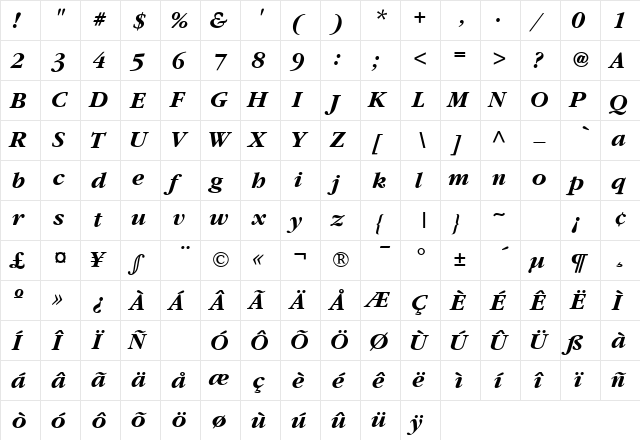
Garamond Semi Expanded SSi Bold Semi Expanded Italic Font Preview
Design Context for Garamond Semi Expanded SSi Typeface
Garamond Semi Expanded SSi takes a measured approach to typography — its balanced proportions and neutral character make it a reliable workhorse for both digital and print work. The slanted form adds forward momentum and visual energy. The heavy weight commands attention and anchors typographic hierarchies.
Pro Tip: Try Garamond Semi Expanded SSi for annotation and caption copy alongside an upright companion — the contrast in angle creates a dynamic but ordered typographic system.